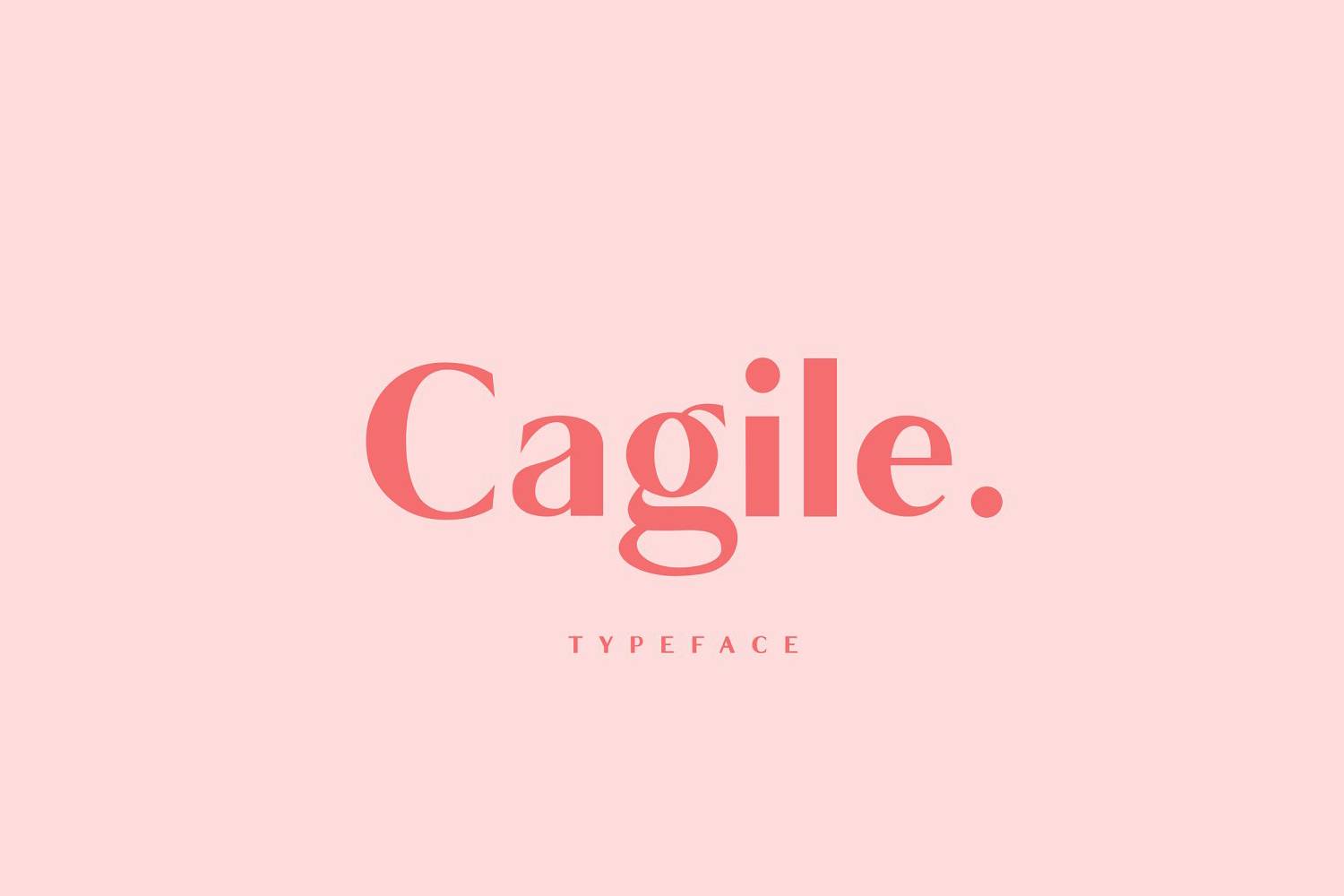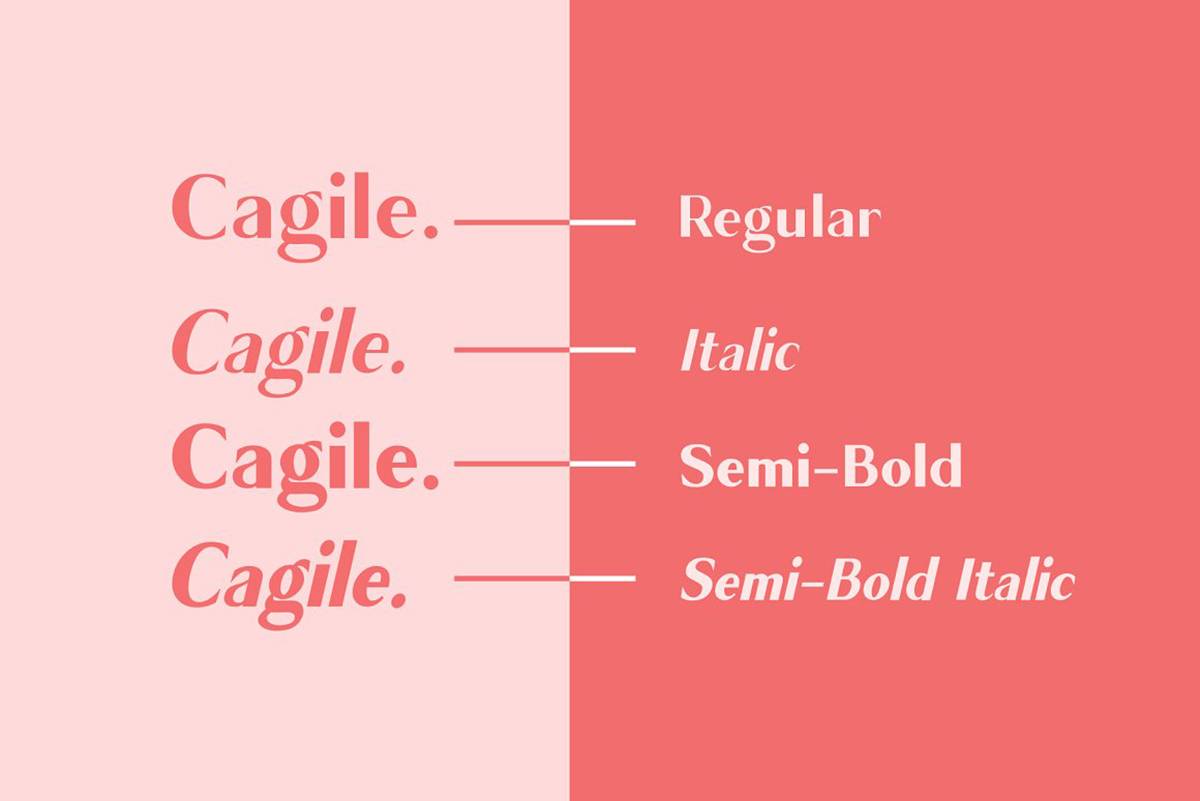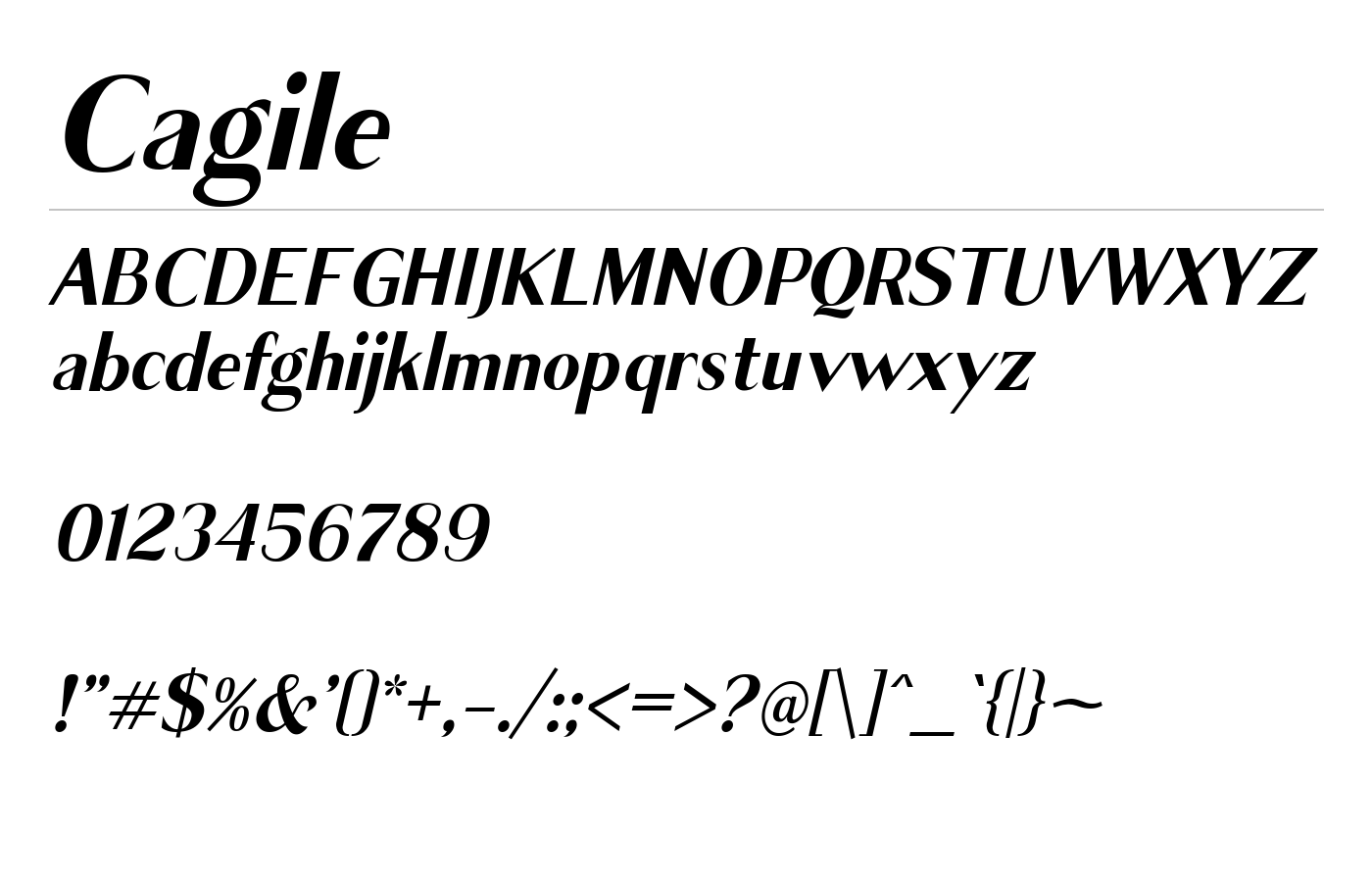
Cagile is an elegant serif font with a classic and refined feel, featuring moderate contrast and smooth, bracketed serifs that give it a timeless sophistication. Its slanted, italicized style along with distinctive letterforms, such as the open lowercase 'g' and uniquely curved 'Q', make it ideal for upscale branding, editorial headlines, and luxury design projects that seek a tasteful yet dynamic appearance. This font balances readability with style, making it perfect for fashion, magazines, and formal communications.
Cagile Font
About Cagile Font